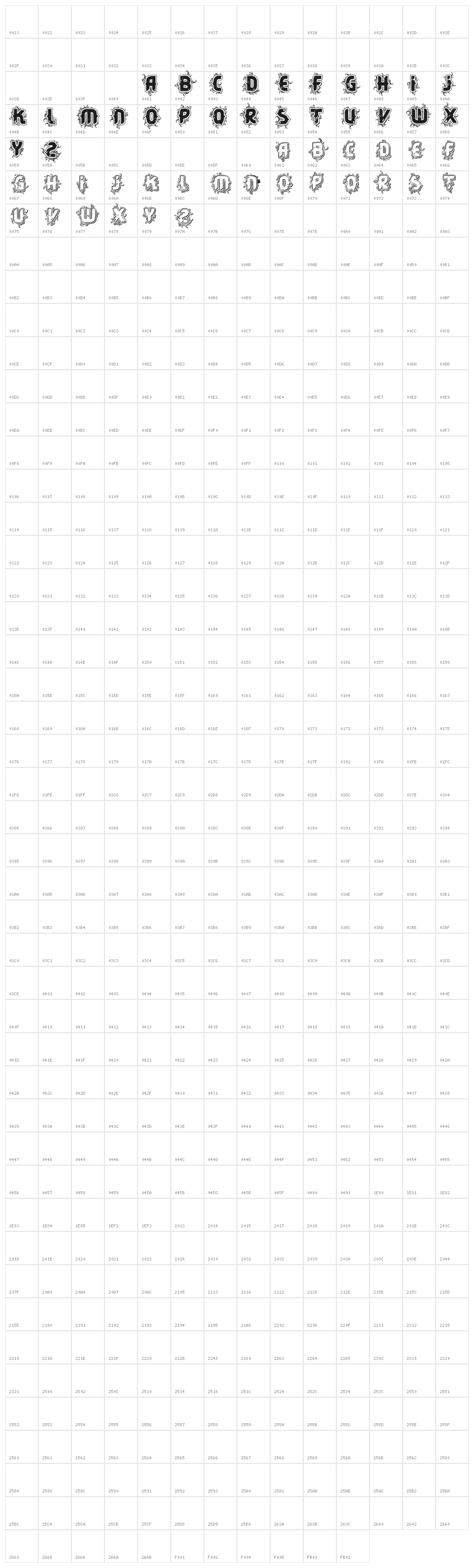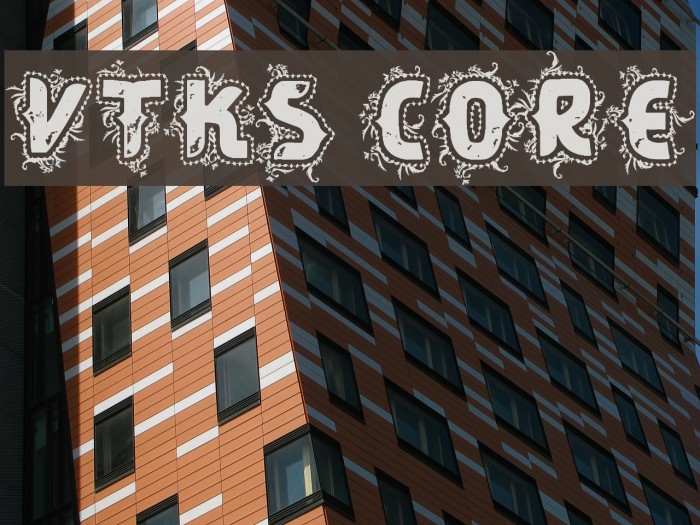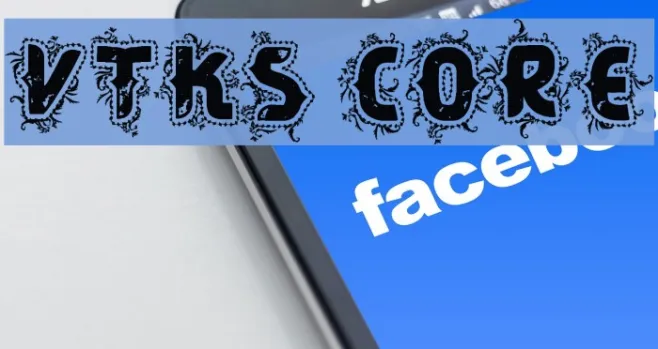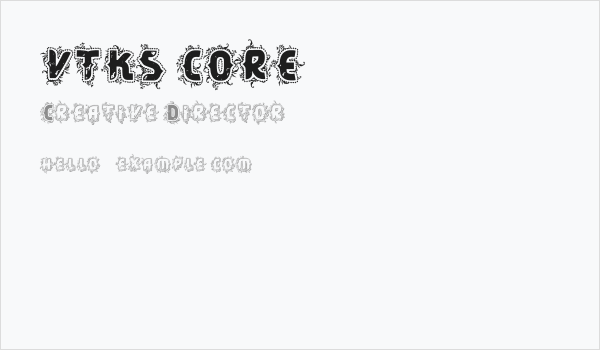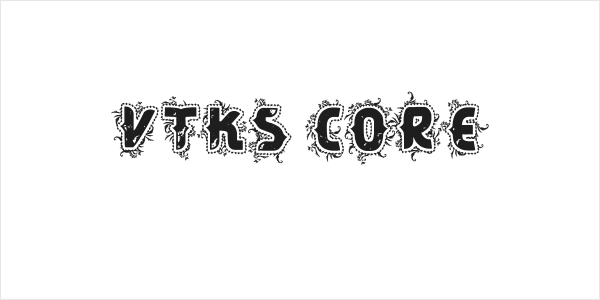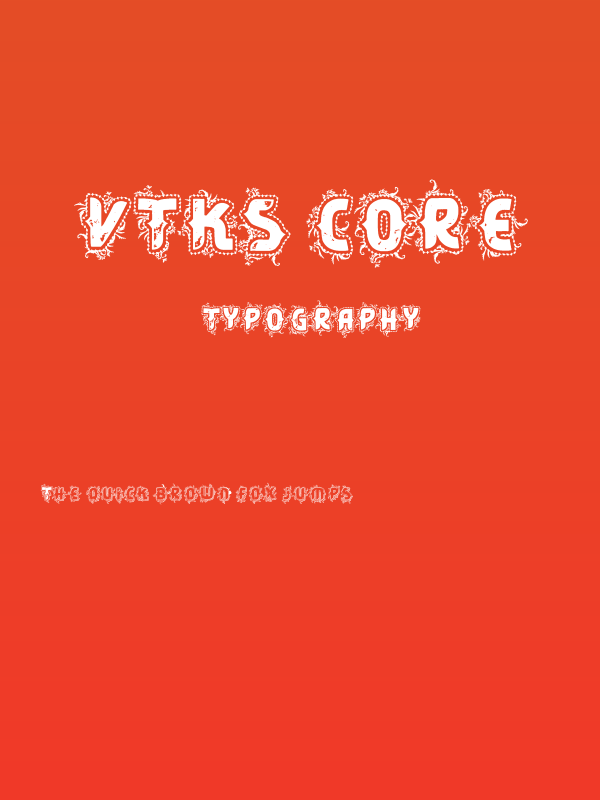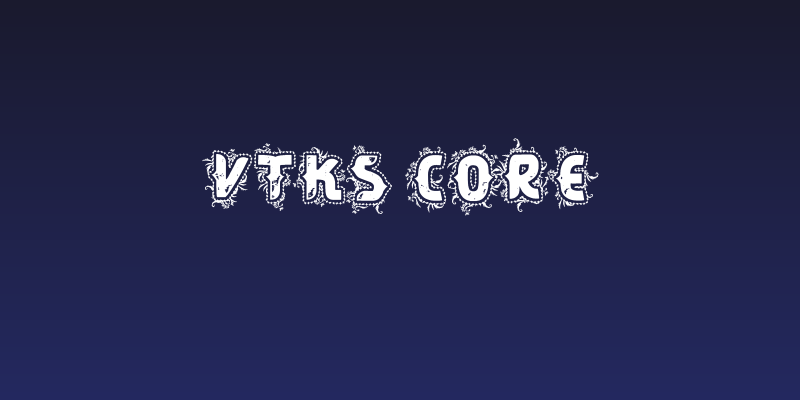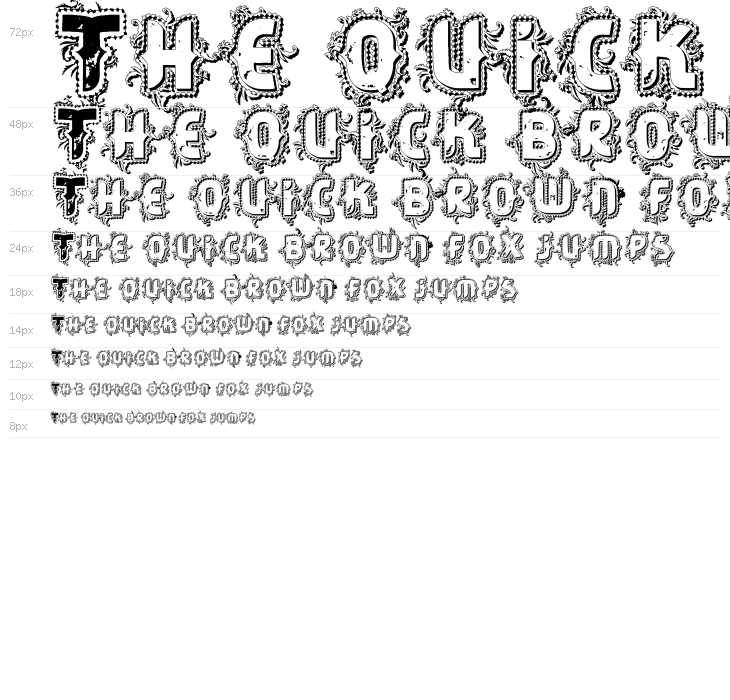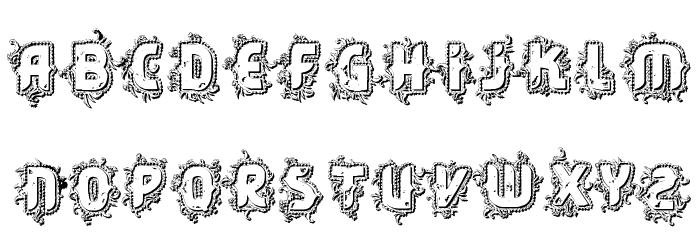
VTKS CORE Font
VTKS CORE Description
This font features a bold and decorative style with intricate, organic embellishments surrounding each character. The uppercase letters are heavily stylized, with a strong presence and a unique flair that makes them stand out. The design incorporates a mix of sharp edges and flowing curves, creating a dynamic and eye-catching appearance. The intricate details give it a somewhat gothic or fantasy-inspired look, making it ideal for projects that require a dramatic and artistic touch. The overall aesthetic is both bold and ornate, with a high level of detail that adds depth and character to each letter.